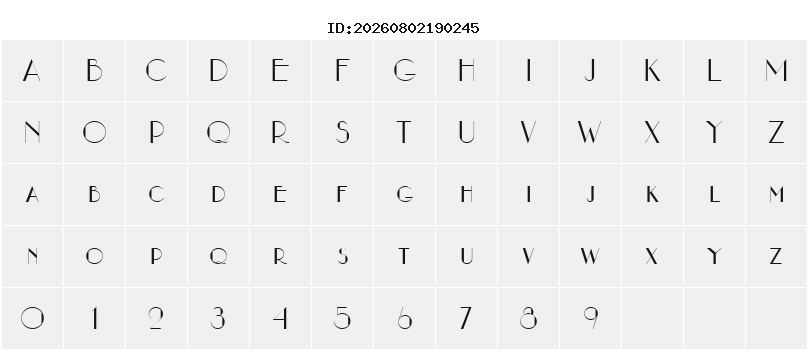
NouveauAsta Preview
About NouveauAsta.ttf
NouveauAsta.ttf is a modern, elegant sans-serif font designed for ultimate readability and visual harmony. Perfect for branding, headlines, web design, and print materials.